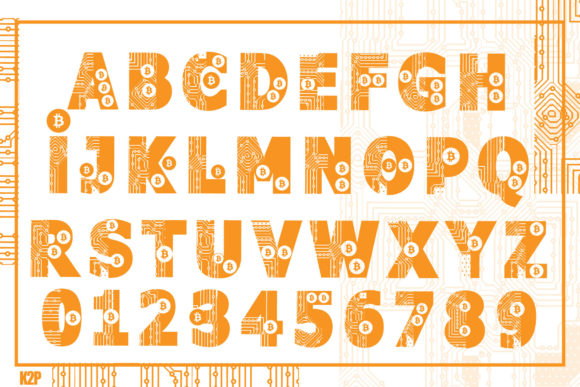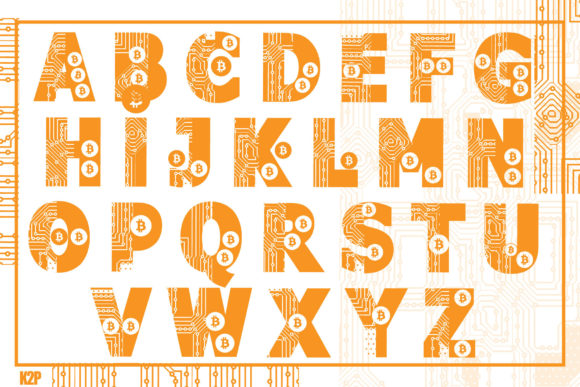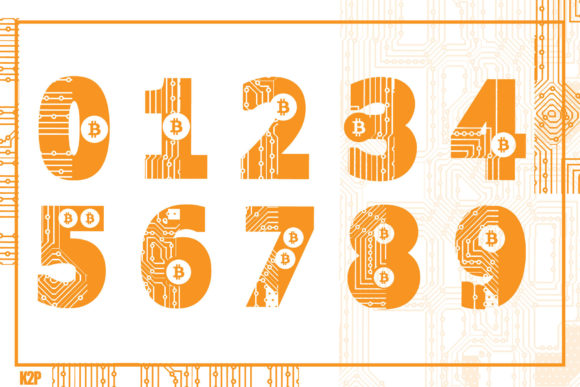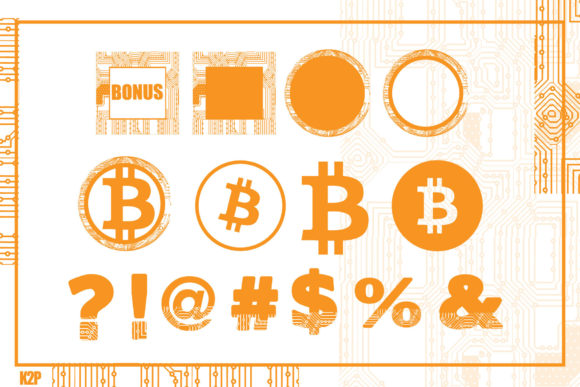
Introducing Bitcoin Font: The Ultimate Display Font for Finance and Crafty Projects
Are you looking for a font that can add a touch of sophistication and uniqueness to your finance project or crafty idea? Look no further than the Bitcoin Font. This thick-lettered and uniquely designed display font is perfect for making a statement and taking your creations to the next level.
What is Bitcoin Font?
Bitcoin Font is a display font that is inspired by the popular cryptocurrency, Bitcoin. It features thick, bold letters that are perfect for headlines, titles, and other display purposes. The font is designed to be highly legible, even at large sizes, making it perfect for use on posters, billboards, and other large-format materials.
Key Features of Bitcoin Font
- Unique Design: Bitcoin Font features a unique design that is inspired by the Bitcoin logo. The font has a distinctive look that sets it apart from other display fonts.
- Thick-Lettered: The font features thick, bold letters that are perfect for making a statement.
- Highly Legible: Despite its bold design, Bitcoin Font is highly legible, even at large sizes.
- Versatile: Bitcoin Font is perfect for use on a wide range of projects, from finance and business to crafty and DIY.
Why Use Bitcoin Font?
There are many reasons why you might want to use Bitcoin Font in your next project. Here are just a few:
- Add a Touch of Sophistication: Bitcoin Font is a sophisticated and professional font that can add a touch of elegance to any project.
- Make a Statement: The bold, thick letters of Bitcoin Font are perfect for making a statement and grabbing attention.
- Perfect for Finance Projects: Bitcoin Font is inspired by the world of finance, making it a perfect choice for projects related to money, business, and economics.
- Ideal for Crafty Projects: Despite its finance-inspired design, Bitcoin Font is also perfect for crafty and DIY projects, adding a touch of industrial chic to any creation.
How to Use Bitcoin Font
Using Bitcoin Font is easy. Here are a few tips to get you started:
- Use it as a Display Font: Bitcoin Font is designed to be used as a display font, so use it for headlines, titles, and other display purposes.
- Experiment with Different Sizes: Bitcoin Font is highly legible, even at large sizes, so don’t be afraid to experiment with different sizes to find the one that works best for your project.
- Pair it with Other Fonts: Bitcoin Font pairs well with a wide range of other fonts, so feel free to experiment with different combinations to find the one that works best for your project.
| Font Name | Bitcoin Font |
| Author | KtwoP |
Bitcoin Font is a unique and versatile display font that is perfect for a wide range of projects, from finance and business to crafty and DIY. Its thick, bold letters and highly legible design make it perfect for making a statement and grabbing attention. Whether you’re a designer, crafty enthusiast, or simply someone who loves to try new things, Bitcoin Font is a great choice for your next project.